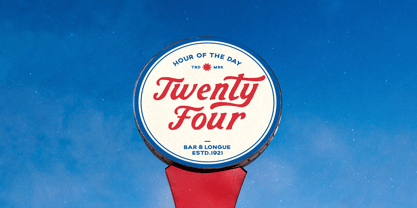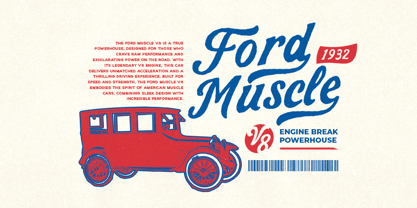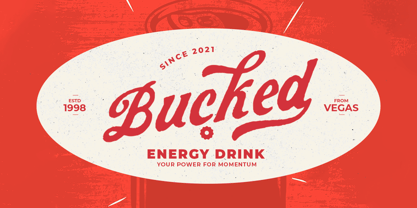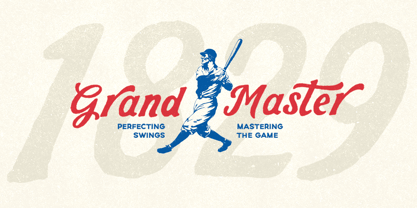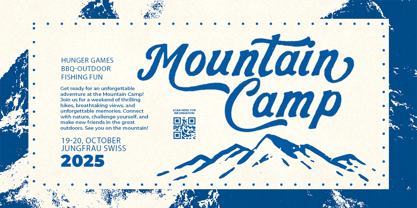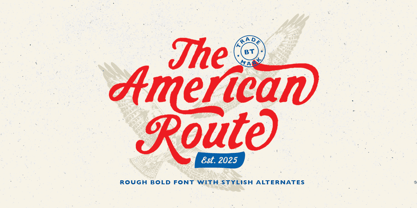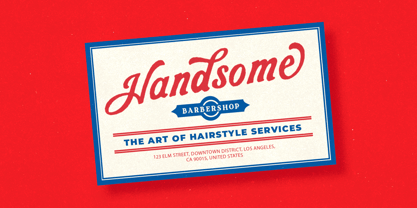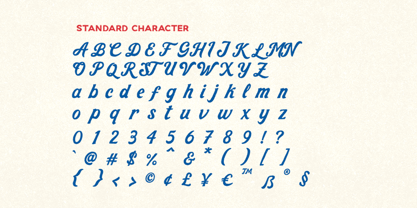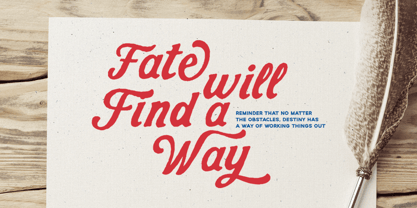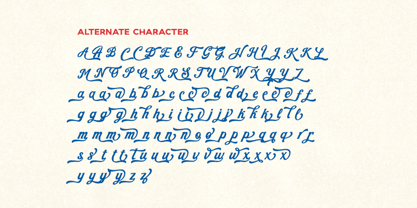
American Route
Die Schriftfamilie American Route wurde von Sarid Ezra, Liwa Shidqy entworfen und von Bale Type veröffentlicht. American Route enthält 1 Stile. Mehr über diese Familie
American Route is a bold font with vintage looks and rough edge. You can use this font for any purpose such as poster, logotype, quotes, and more. With stylish alternates, you can make your design looks stunning and stand out. This font also support multi language. Let this font make your next project looks cool!
Designer: Sarid Ezra, Liwa Shidqy
Foundry: Bale Type